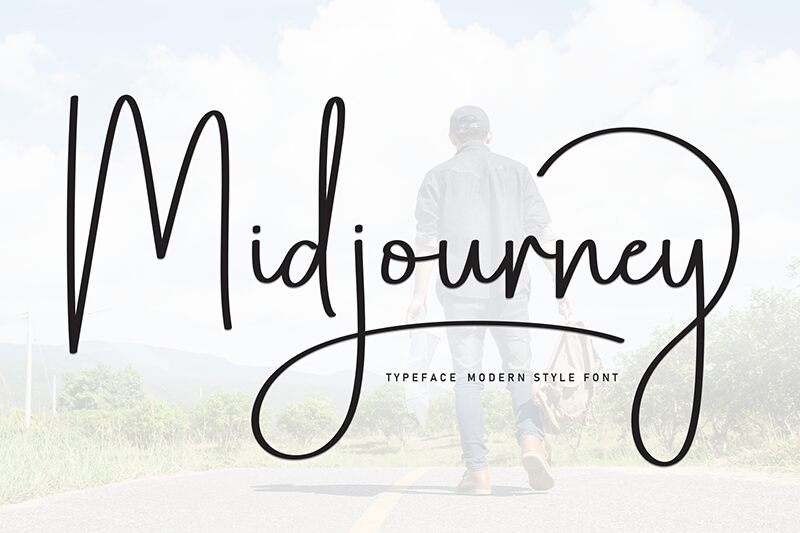
Midjourney
Midjourney font by Scratchones is a free handwritten font with an organic flow and modern aesthetic. It displays an authentically casual style within a clean appearance and signature letter shapes. If you want to stay away from the traditional limitations of serif fonts, this one will certainly be an impeccable alternative.